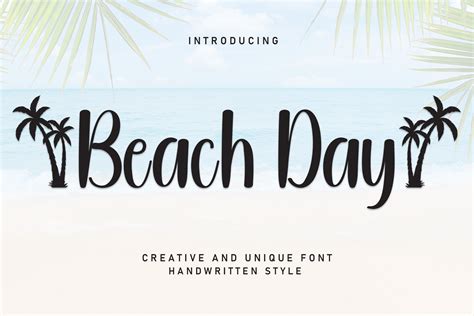
Beachday Font: Your Guide To Breezy Typography
Hey guys! Ever wanted a font that just screams sunshine, sand, and good vibes? Well, let’s dive into the world of Beachday fonts ! These fonts are all about capturing that relaxed, carefree feeling you get when you’re chilling by the ocean. Whether you’re working on a summer-themed project, a travel blog, or just want to add a touch of whimsy to your designs, Beachday fonts might be your new best friend. In this article, we’ll explore what makes a font a “Beachday” font, where you can find them, and how to use them effectively. Let’s catch some design waves!
What Makes a Font a “Beachday” Font?
So, what exactly defines a Beachday font ? It’s not a strict category, more of a vibe, you know? These fonts usually have a few key characteristics that set them apart and give them that summery, coastal feel. Think about what reminds you of the beach – it’s probably something light, airy, and a little bit playful.
- Casual and Handwritten Styles: Many Beachday fonts mimic handwriting. This gives them a personal, approachable feel, like a note scribbled in the sand. These fonts often feature slightly uneven lines and imperfect curves, adding to their charm. The goal is to avoid rigid, formal typography in favor of something more relaxed and human.
- Rounded and Soft Edges: Harsh, sharp edges don’t really scream “beach,” do they? Beachday fonts often incorporate rounded terminals and soft corners to create a gentle, friendly appearance. This can make your text feel more inviting and less aggressive, perfect for conveying a sense of calm and relaxation.
- Sans-Serif Options: While handwritten styles are common, many Beachday fonts also come in sans-serif variations. These are often simple, clean, and modern, but still retain a touch of playfulness. Look for sans-serif fonts with slightly wider proportions or unique letterforms that differentiate them from more corporate or serious typefaces.
- Nautical or Thematic Elements: Some Beachday fonts directly incorporate nautical or beach-related elements, such as wave-like curves, seashell shapes, or subtle details that evoke the ocean. These can be a fun way to add a bit of visual interest to your designs, but be careful not to overdo it. Subtlety is key here!
- Light and Airy Weight: A heavy, bold font might not be the best choice for capturing that breezy beach feeling. Beachday fonts often come in lighter weights, allowing them to feel more delicate and airy. This can also help to create a sense of spaciousness and openness in your designs, reminiscent of the wide-open ocean.
Ultimately, a Beachday font is all about evoking a feeling. It should make you think of sunny skies, cool breezes, and the sound of waves crashing on the shore. When choosing a font for your project, consider the overall tone and message you want to convey, and whether the font helps to create that desired atmosphere.
Where to Find the Perfect Beachday Font
- Adobe Fonts: If you’re an Adobe Creative Cloud subscriber, you have access to Adobe Fonts, a massive library of high-quality fonts. This is a great option if you want a wide selection and are willing to pay for a subscription. Adobe Fonts makes it easy to browse, preview, and activate fonts directly within your Adobe applications.
- Creative Market: Creative Market is a marketplace where independent designers sell their fonts and other design assets. This is a great place to find unique and unusual Beachday fonts that you might not find anywhere else. You can often find bundles of fonts at discounted prices, which can be a great value.
- Font Bundles: Similar to Creative Market, Font Bundles offers a variety of fonts from independent designers. They often have limited-time deals and bundles, so it’s worth checking back regularly to see what’s new. This can be a great way to build up your font library without breaking the bank.
- DaFont and FontSpace: These websites offer a wide selection of free fonts, but be aware that the quality can vary. Make sure to check the license before using a font from these sites, as some may only be free for personal use. However, if you’re on a tight budget, they can be a good starting point for finding a Beachday font .
When searching for fonts, be sure to use relevant keywords such as “beach,” “summer,” “ocean,” “nautical,” “handwritten,” “script,” “casual,” and “rounded.” You can also browse font categories like “script fonts” or “display fonts” to narrow down your search.
Conclusion: Ride the Wave of Beachday Fonts
So there you have it – a complete guide to Beachday fonts ! These fonts are a fantastic way to add a touch of sunshine, relaxation, and playfulness to your designs. Whether you’re working on a summer-themed project, a travel blog, or just want to inject some fun into your typography, Beachday fonts can help you achieve that perfect breezy vibe. Just remember to use them sparingly, consider legibility, and pair them with complementary fonts. Now go out there and catch some design waves!